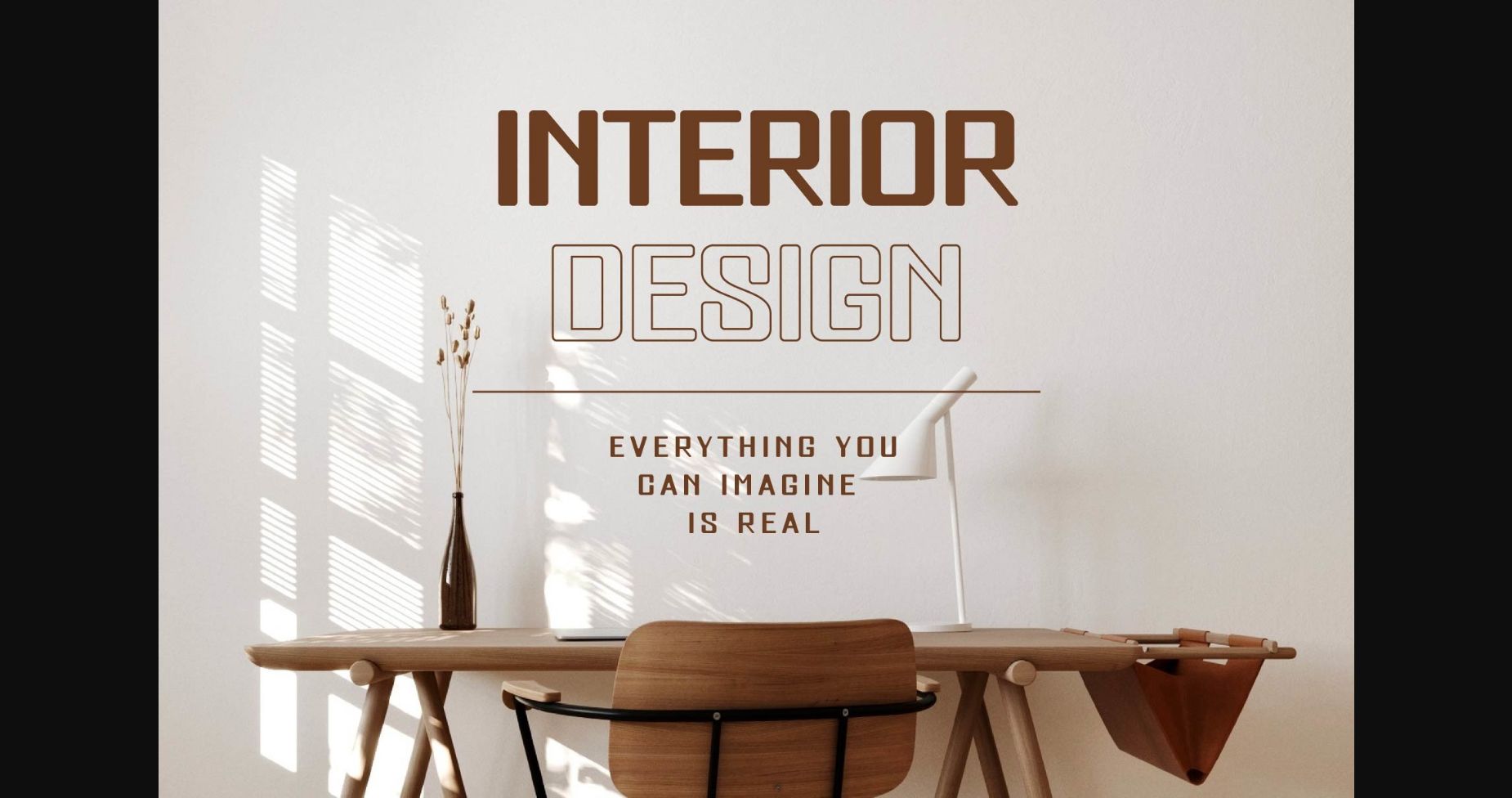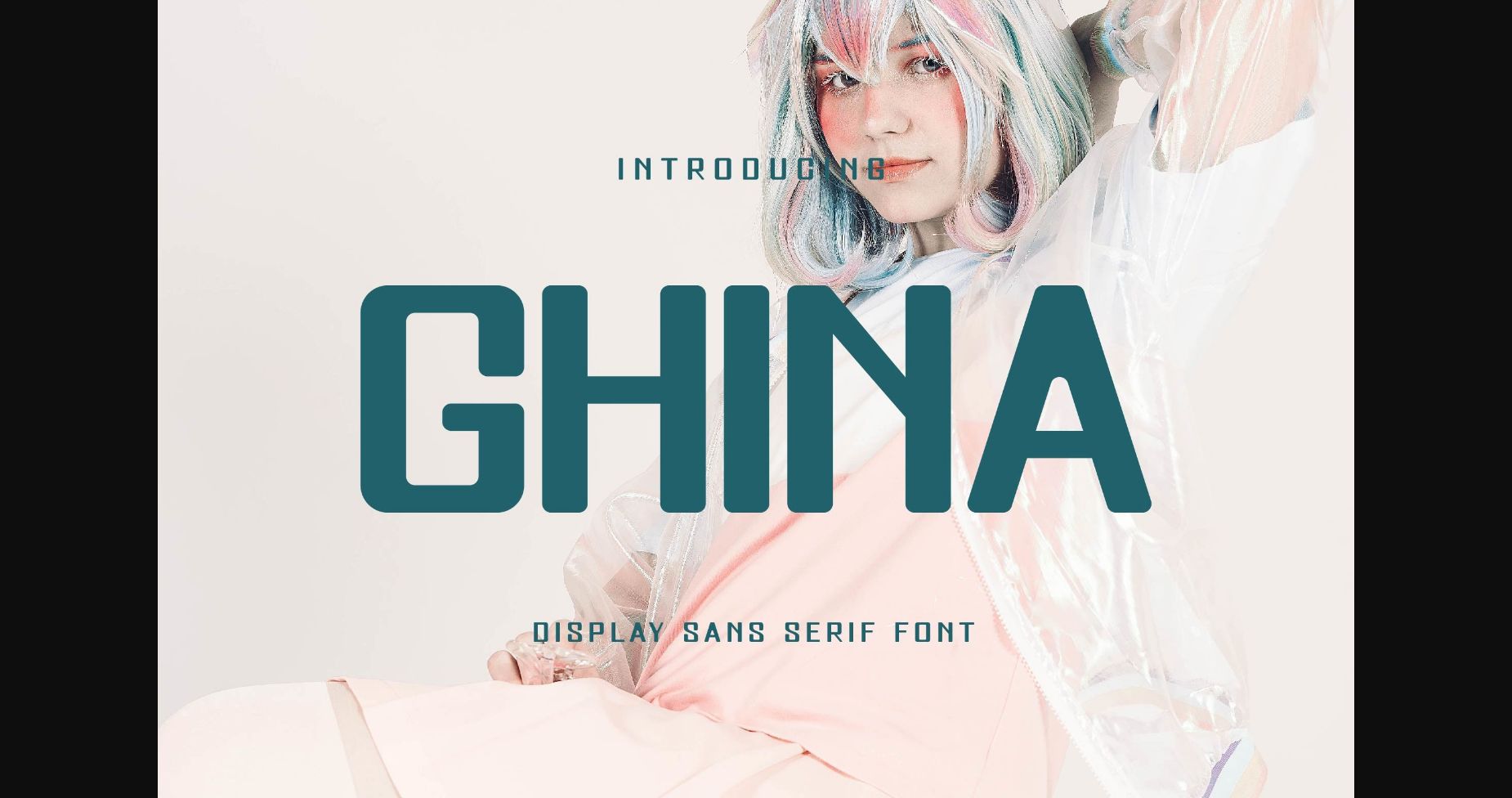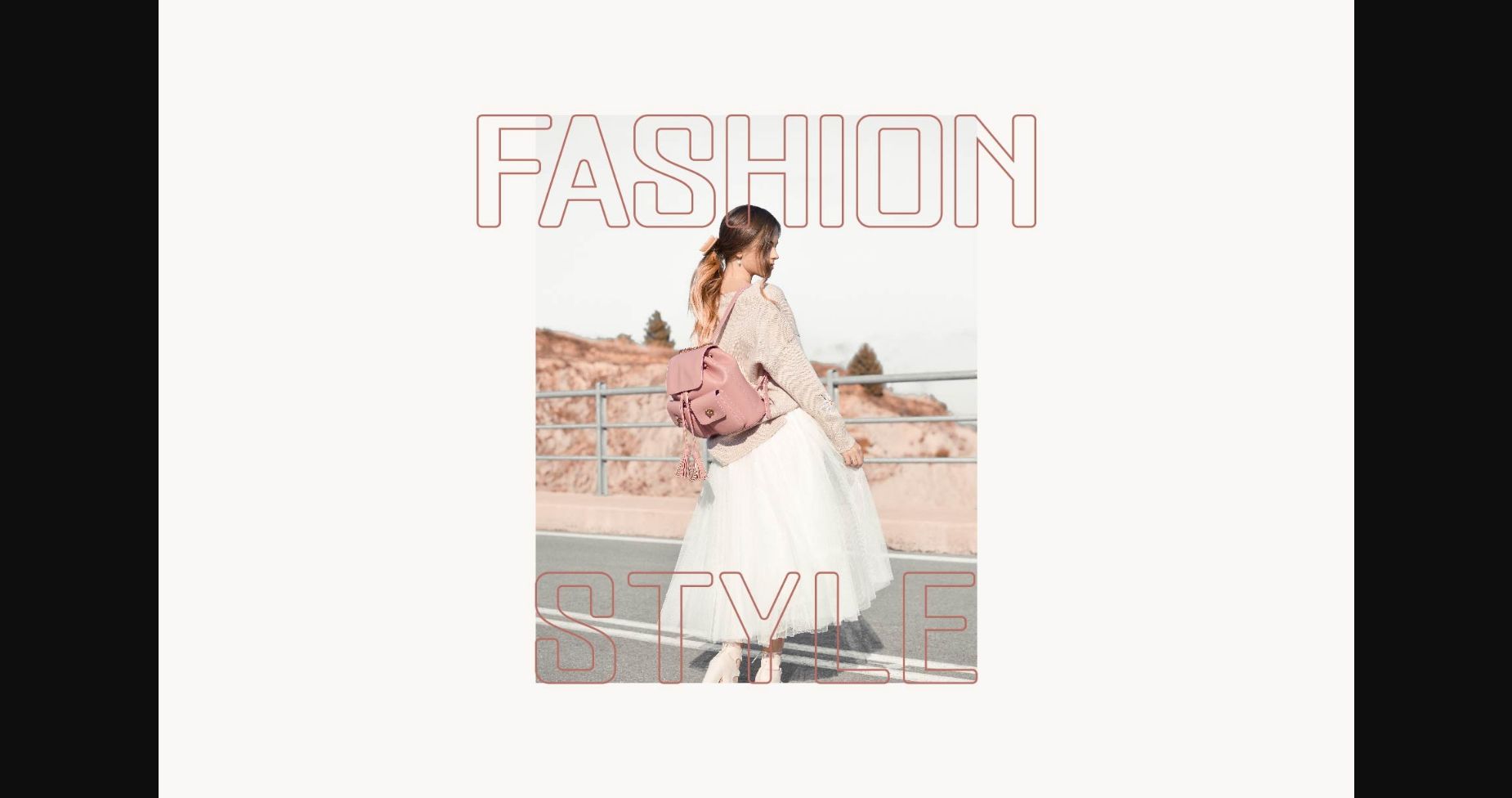
About Ghina Font
Ghina Sans is a typeface font inspired by the famous minimalist logo perfect for the purposes of designing templates, brochures, videos, advertising branding, logos, invitation, layout design, elegant crafting, beauty design and other.